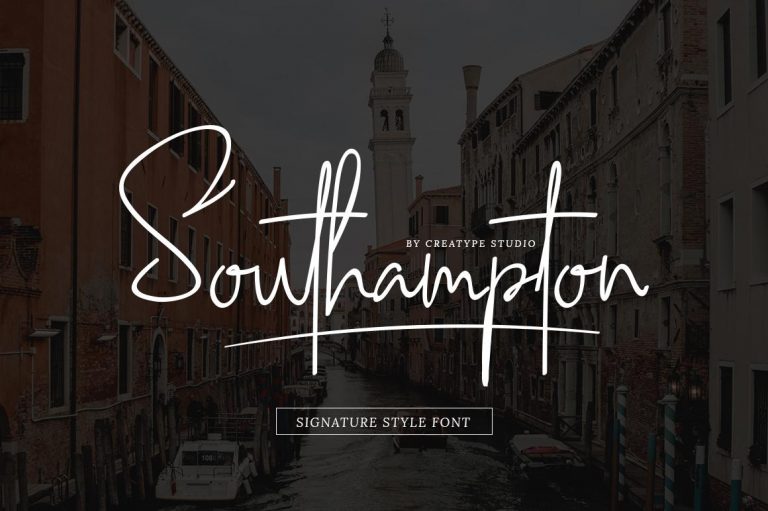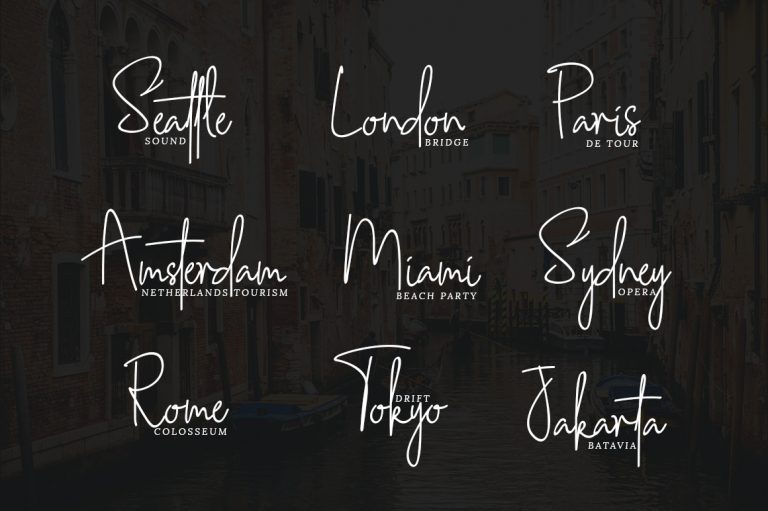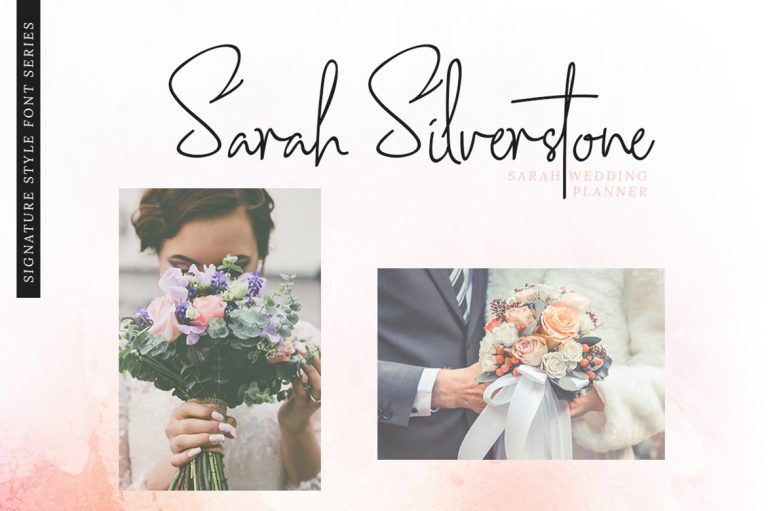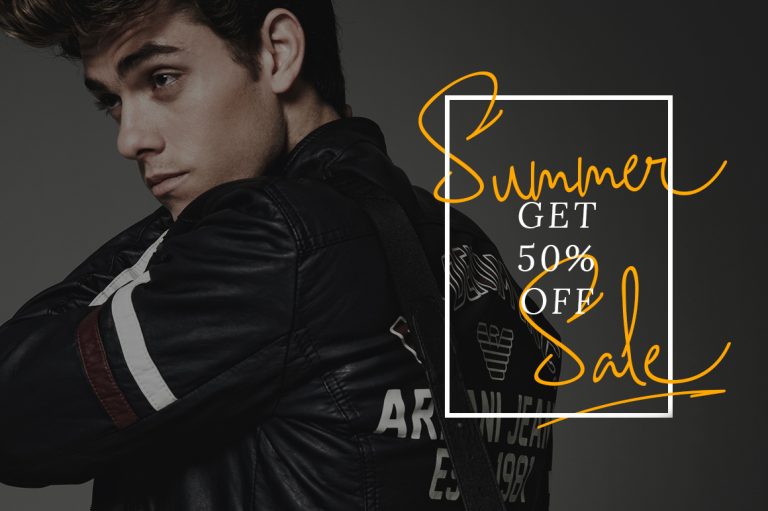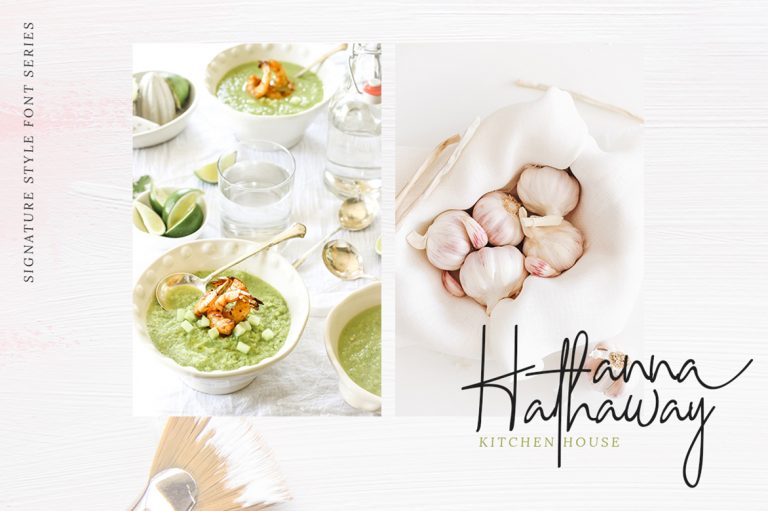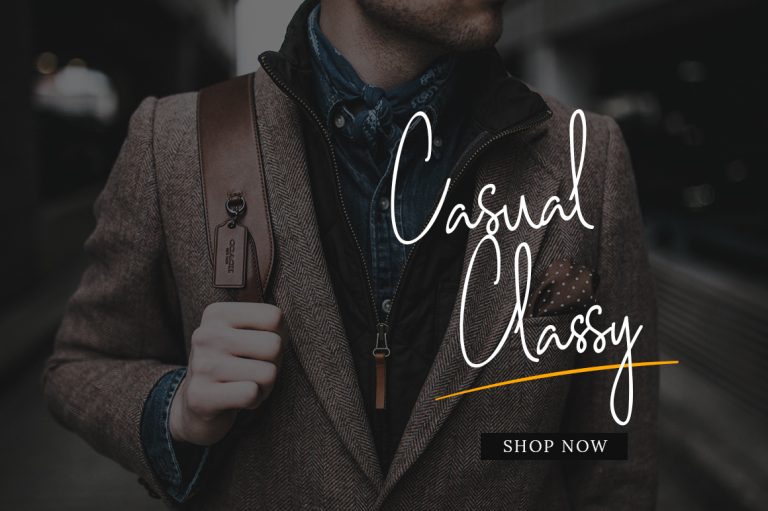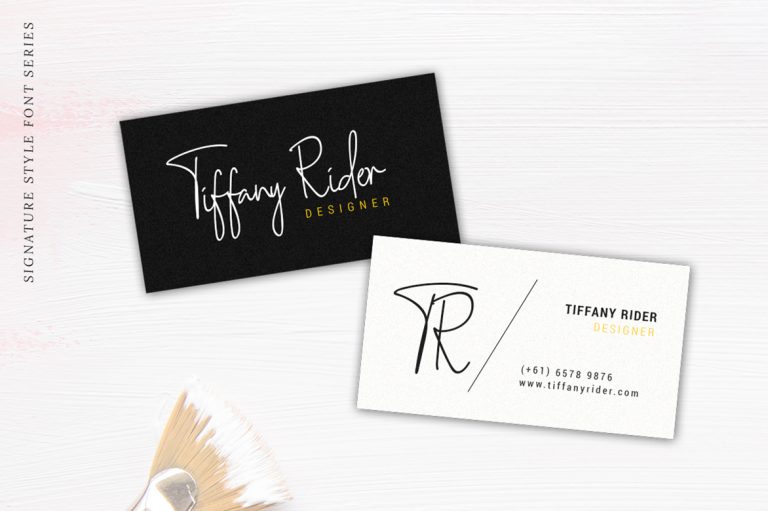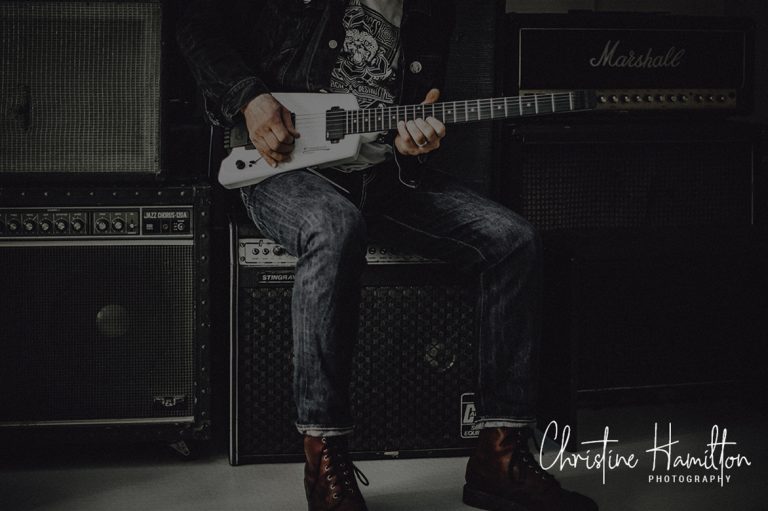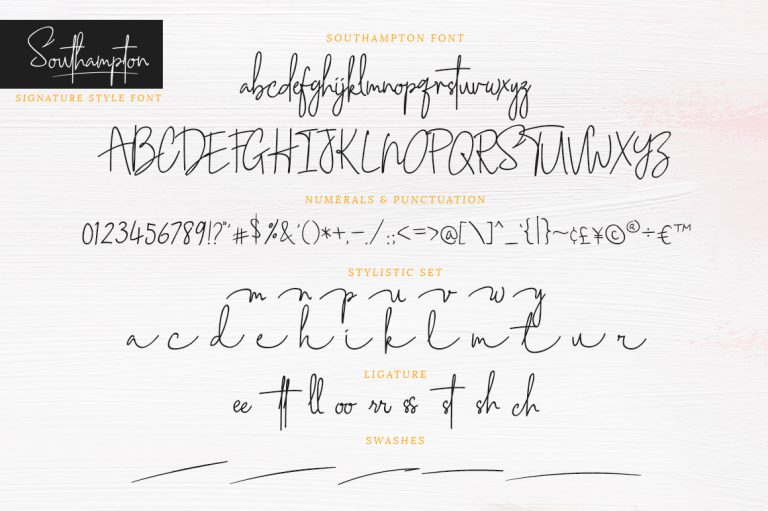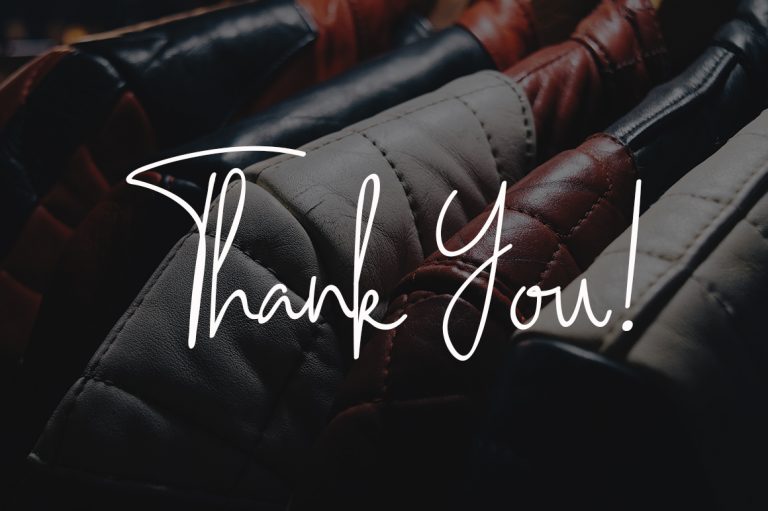
Introducing the Southampton, a stylish handwritten with signature style. This beautiful script font offers your personal touch to your latest art project with elegant, classy and modern look.
Southampton offers gorgeous typographic will perfect for many different project such as logos & branding, invitation, stationery, wedding designs, social media posts, advertisements, product packaging, product designs, label, photography, watermark, special events or anything that need handwriting taste.
Southampton Signature Style